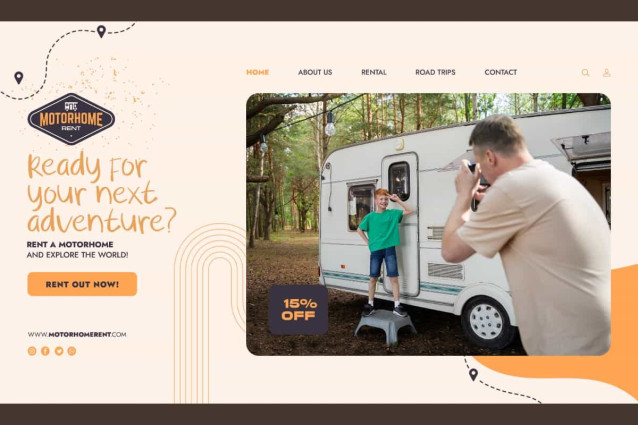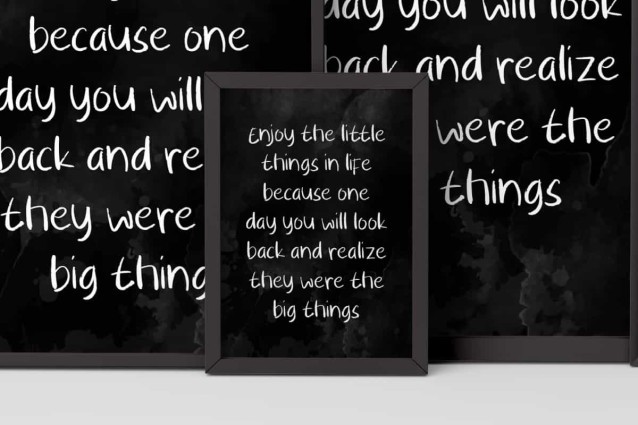
Dont Judge Font
Dont Judge Font is a mysterious brush display font by NoahType. This font is created using smooth brush strokes to produce simple characters. It will be good for any designs, such as custom design, invitation, label, stationery, cover, brand image, marketing material, menu, poster, product packaging, quotes, signage, web, and many more!
Dont Judge Font includes a complete set of Uppercase and Lowercase Basic Characters, Numerals, Punctuation, and Symbol. The characters of this font will give amazing look and also a perfect choice for many industries, such as fashion, cafe, accessories, advertising, event or festival, game, movie, printing, publishing, etc.